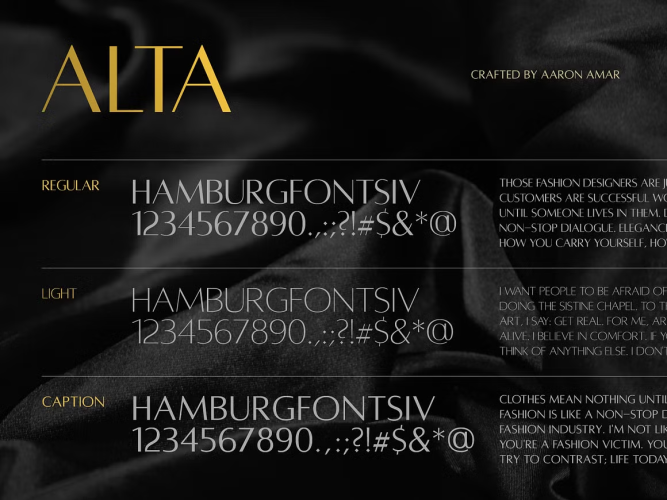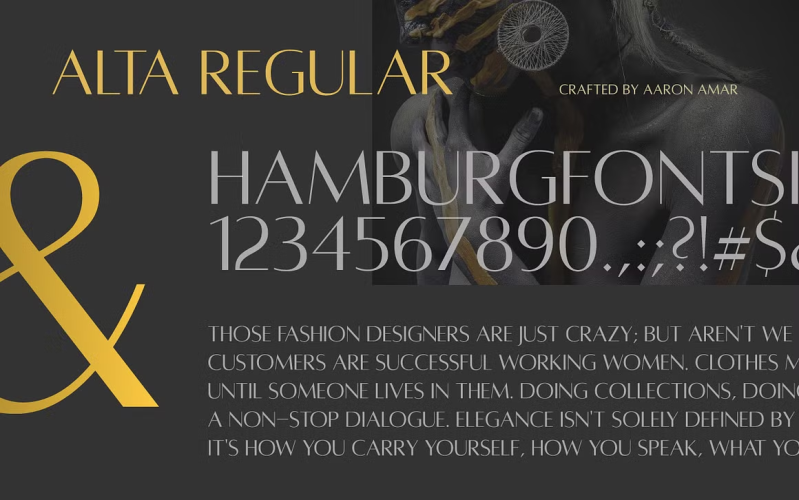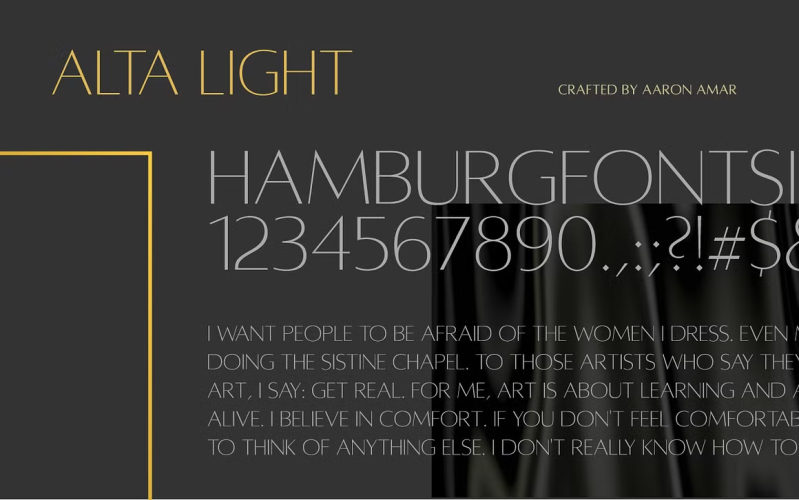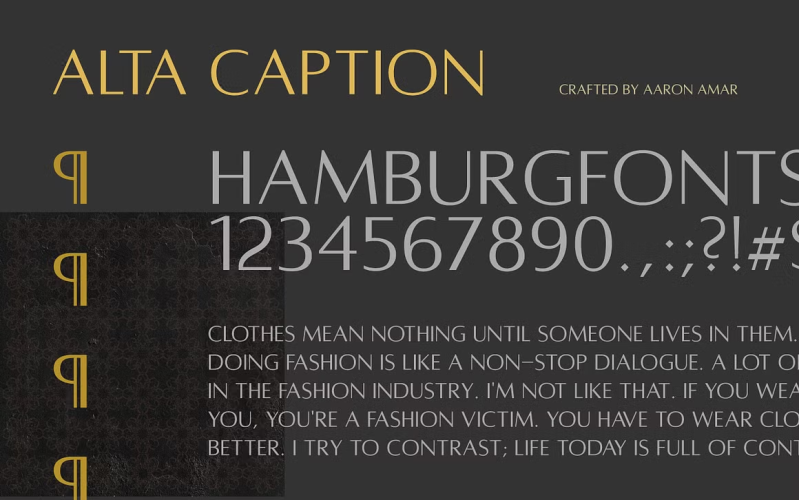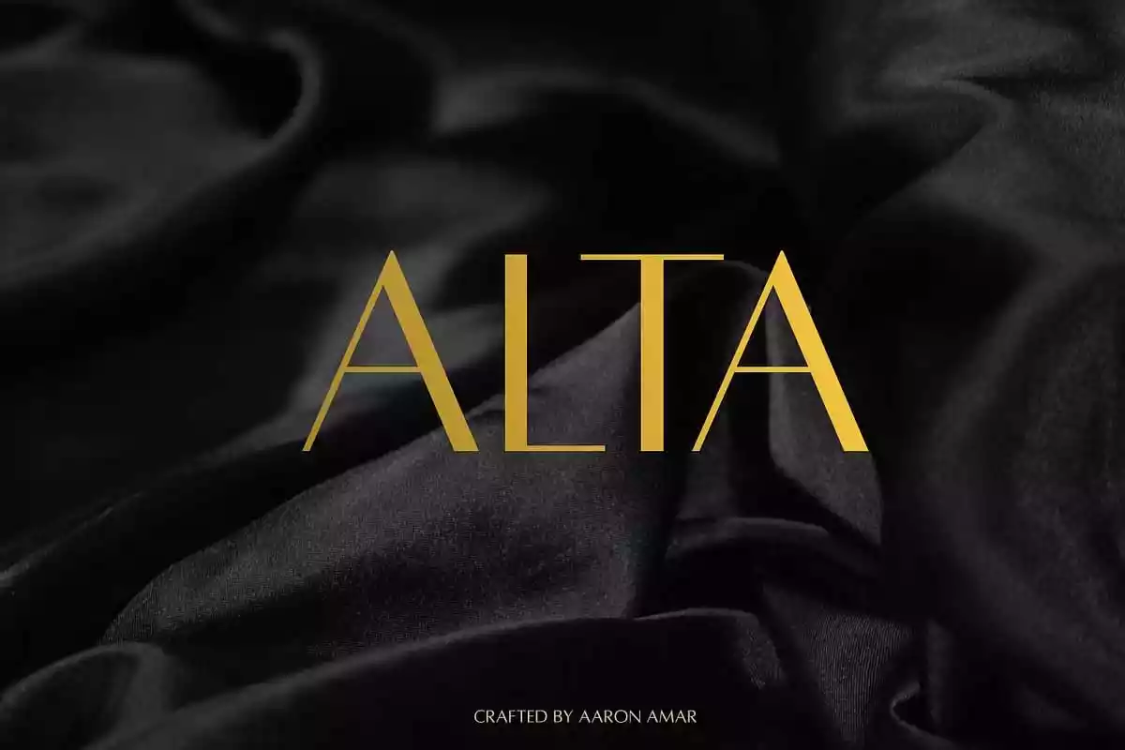
Alta Font
Alta Typeface is a Sans Serif, All-Caps Display Humanist Typeface created by Hermann Zapf. It is based on the aesthetics of the Optima Typeface.
Alta Light Font
Alta Regular Font
Alta Caption Font
Alta Font is a Serif Fonts font that brings a professional and versatile look to your projects. Alta Typeface is a Sans Serif , All-Caps Display Humanist Typeface created by Hermann Zapf.